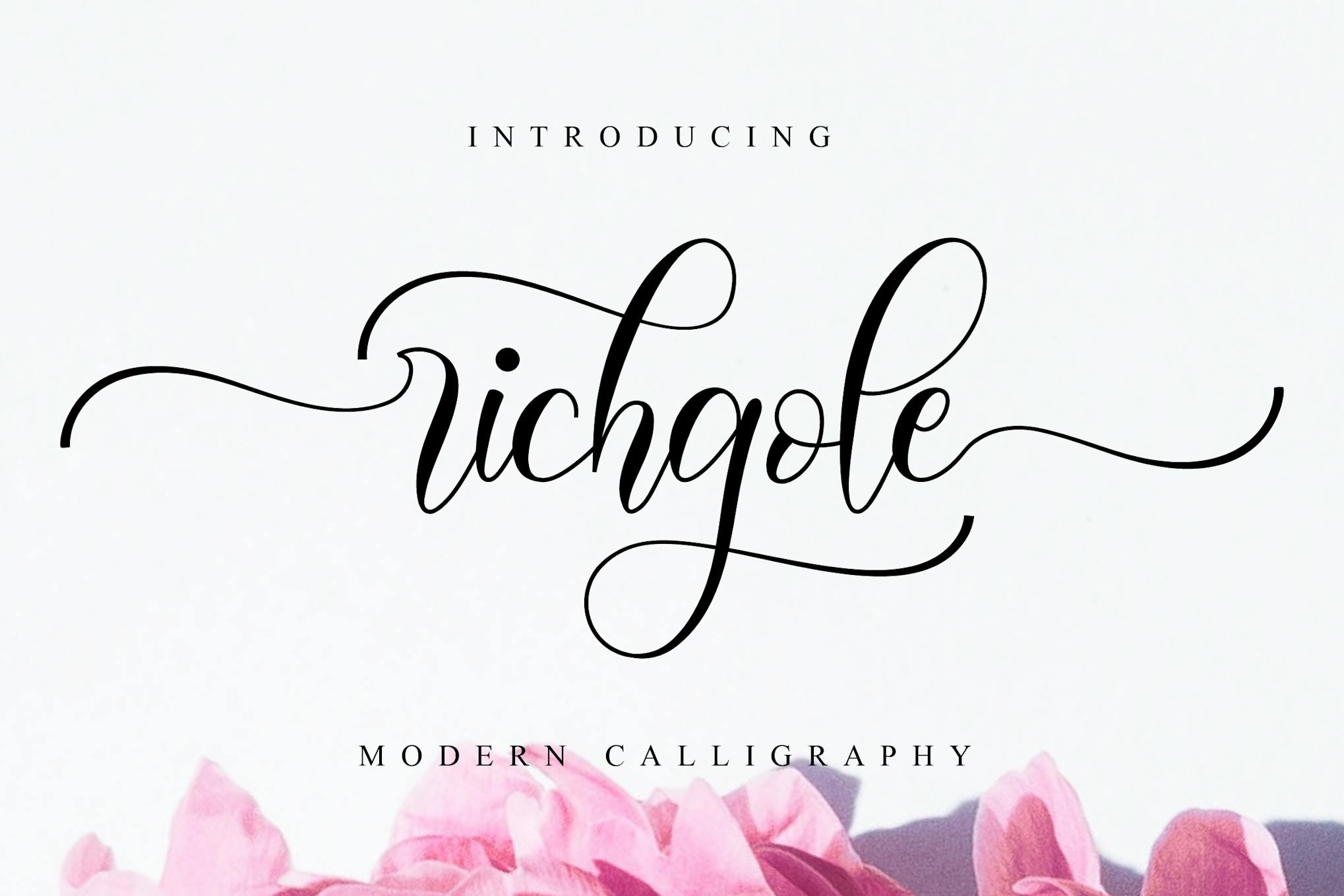
Richgole - Wedding Font
The Richgole - Wedding Font excels in luxurious design applications including opulent wedding invitations, luxury bridal branding, prestigious ceremony logos, golden product packaging, wealthy business cards, luxurious portfolios, golden greeting cards, affluent social media graphics, prestigious event signage, and luxury marketing materials. Its luxury script style makes it perfect for projects requiring golden elegance that communicates wealth and establishes prestigious brand positioning with audiences seeking luxury wedding experiences and golden sophistication.
What makes the Richgole - Wedding Font truly exciting is its exceptional ability to capture the golden opulence and luxurious beauty of wealthy weddings through richly crafted letterforms. The font features flowing, gold-inspired strokes with luxurious flourishes and wealthy proportions that create a distinctly opulent appearance. Each character displays remarkable attention to luxury detail with golden curves, wealthy connections, and prestigious spacing that give text a beautifully luxurious, hand-lettered quality. The font's golden character and wealthy rhythm create an atmosphere of golden luxury while maintaining opulent sophistication and wedding authenticity.
The Richgole - Wedding Font family typically includes regular weight with extensive character coverage, featuring uppercase and lowercase letters, numerals, punctuation marks, and international characters. The typeface often incorporates stylistic alternates, contextual ligatures, and golden swashes that enhance its signature luxury appeal. These additional elements provide designers with creative flexibility to customize text appearance and achieve more natural-looking wealthy handwriting that reflects the font's golden and luxurious character.
This luxurious signature font distinguishes itself through its remarkable balance of golden charm and sophisticated elegance. Unlike budget or economical fonts that lack luxury appeal, Richgole - Wedding Font embraces the power of wealthy design to create opulent connections with luxury wedding audiences. The font's golden character makes it essential for luxury wedding planners, wealthy brands, and prestigious celebration businesses where creating golden wedding experiences and luxurious memories is fundamental to success in luxury wedding markets.